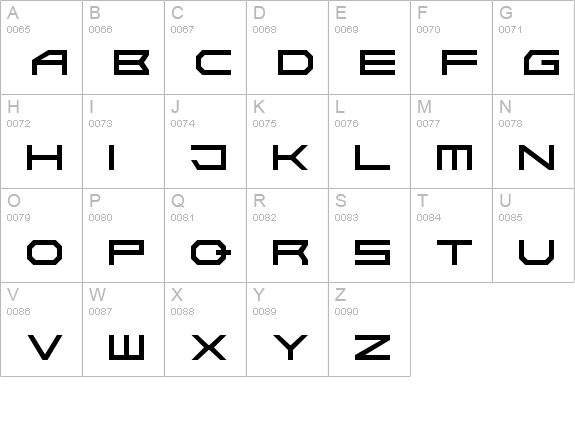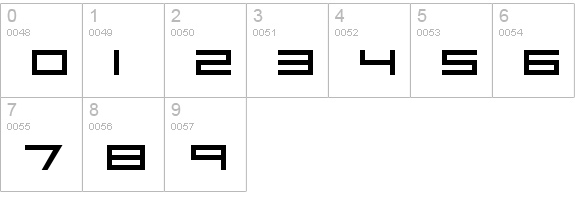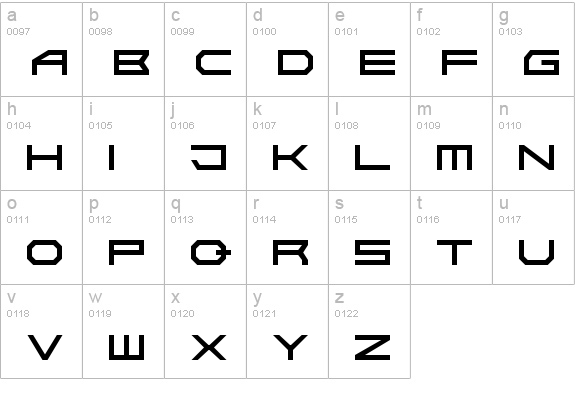
Introducing Absolute Zero font - a modern and sleek typeface that exudes sophistication and elegance. With its clean lines and sharp edges, Absolute Zero is perfect for creating eye-catching designs that demand attention. This versatile font is ideal for a wide range of projects, from branding and logo design to web design and print materials.
What sets Absolute Zero font apart is its unique blend of classic elegance and contemporary flair. Whether you're looking to create a timeless logo or a modern website, this font has you covered. And the best part? Absolute Zero font is completely free to download at FontsMarket.com. So go ahead and elevate your designs with this stylish and versatile typeface today!